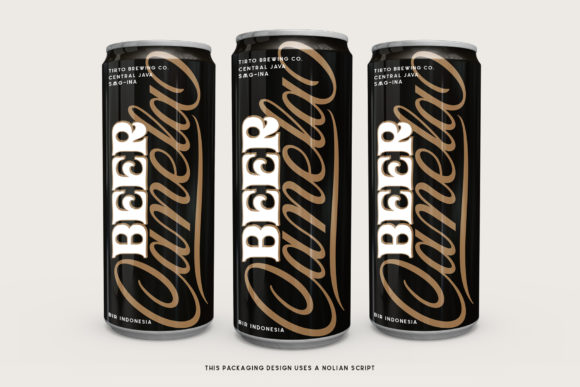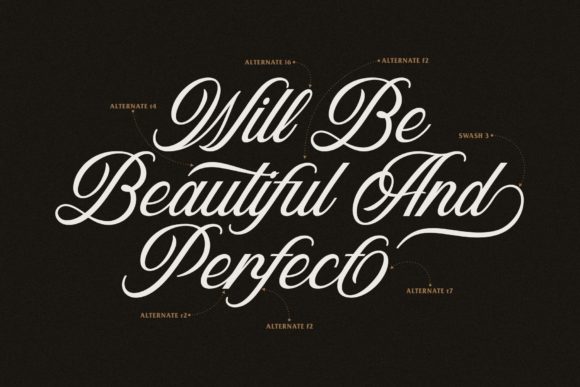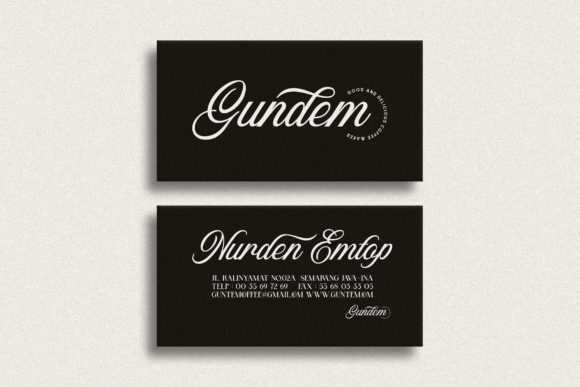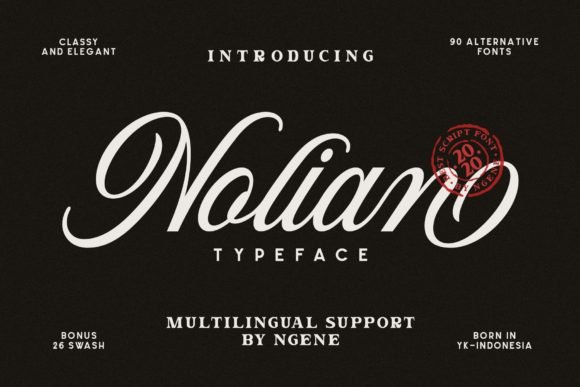
Introduction to Nolian Font
Nolian is a stylish and incredibly elegant script font.
Why Choose Nolian Font?
Nolian Font offers exceptional quality and versatility, making it a valuable addition to your design toolkit. Whether you’re creating for personal projects or commercial use, Nolian Font delivers professional results.